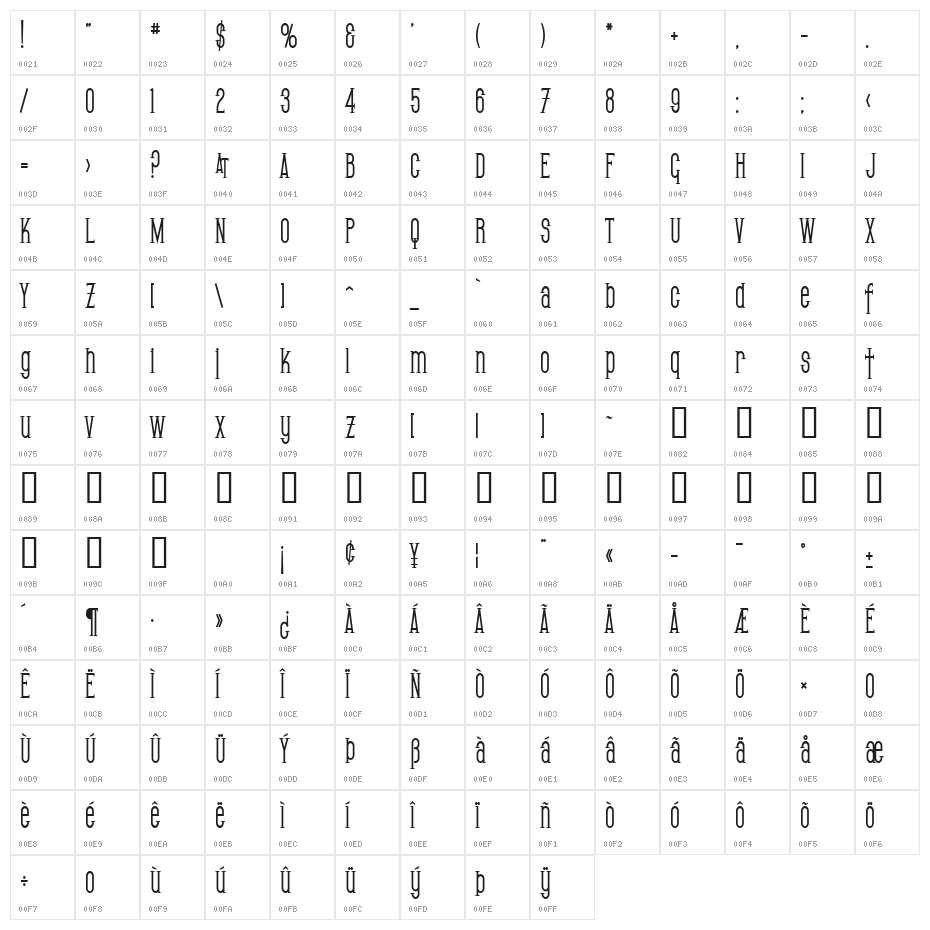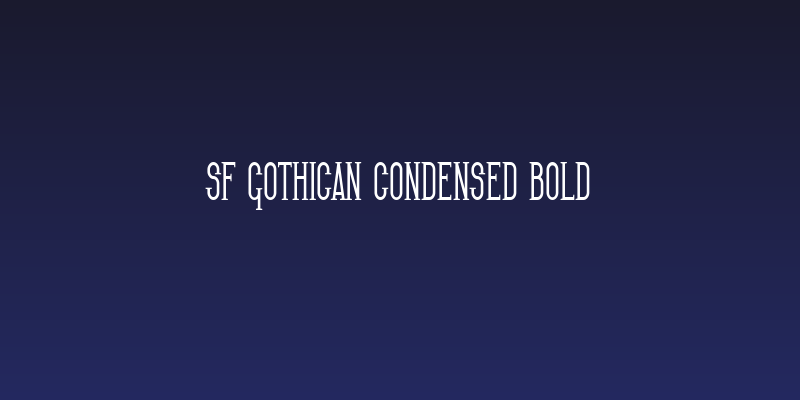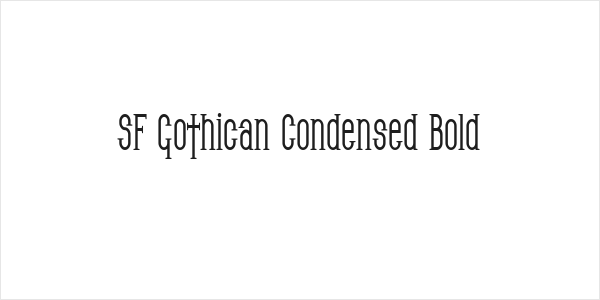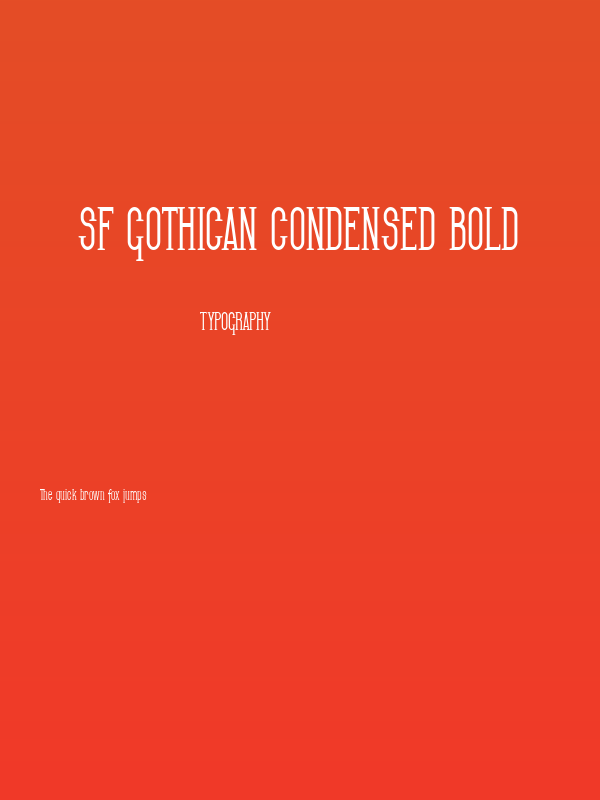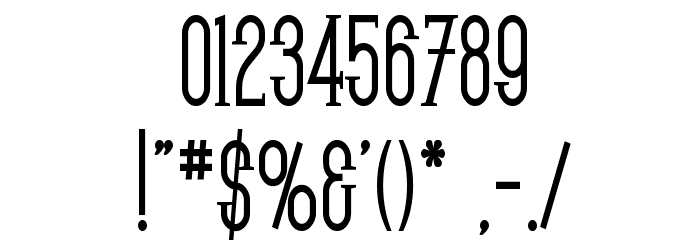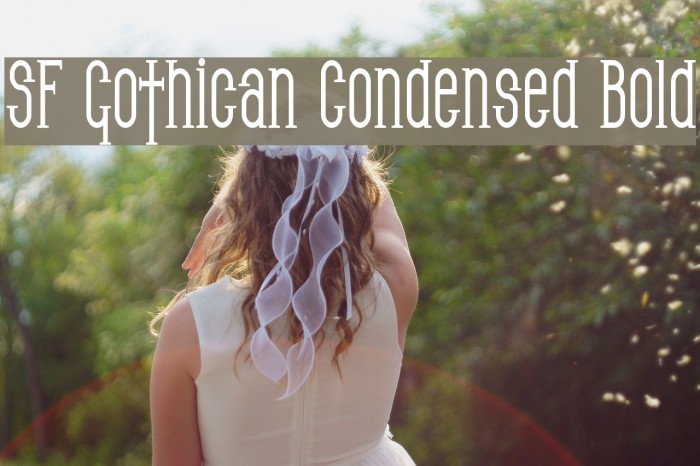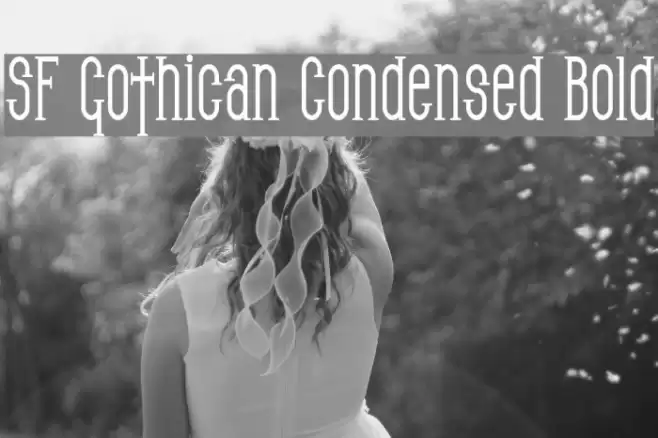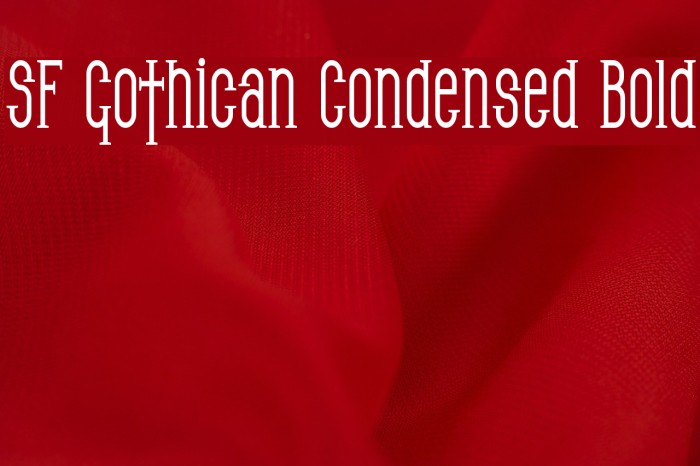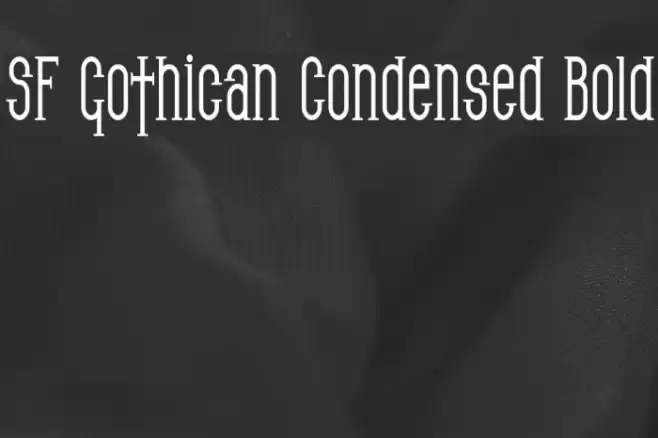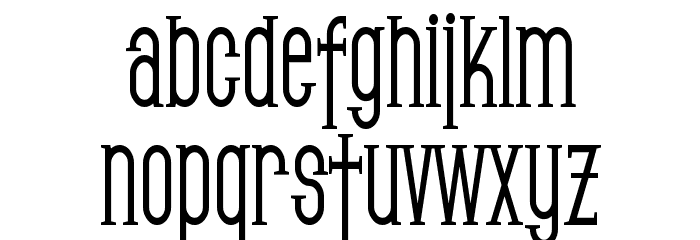
SF Gothican Condensed Bold Font
SF Gothican Condensed Bold Description
This font features a condensed and bold style with a distinct gothic influence. The uppercase letters are tall and narrow, with a strong vertical emphasis that gives them a commanding presence. The lowercase letters maintain a similar narrow structure, providing a cohesive look across different text sizes. The numerals are consistent with the overall style, ensuring readability while maintaining the font's unique character. Special characters are designed to complement the alphabet, with a similar weight and spacing. The font's boldness and condensed nature make it suitable for impactful headlines and titles, where space is limited but visibility is crucial.
| Proposed Projects | Perfect for posters, magazine covers, branding materials, and any project requiring a strong visual impact. |